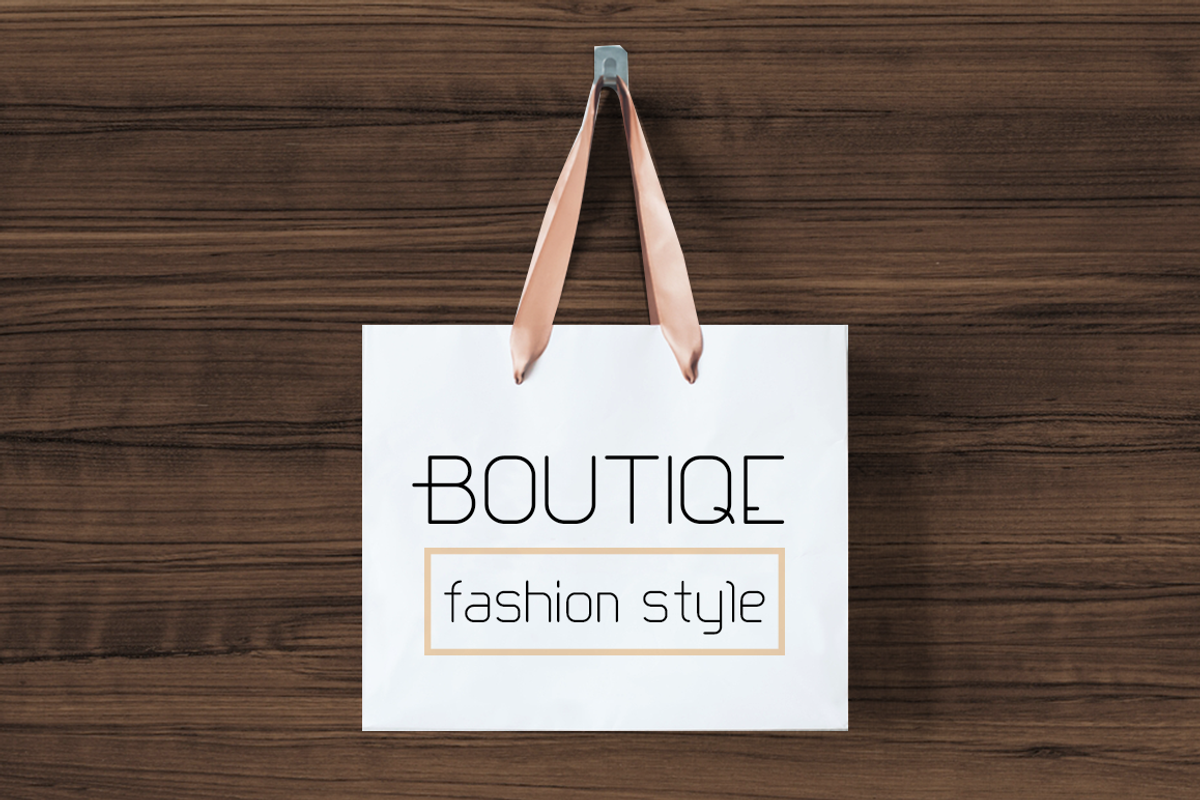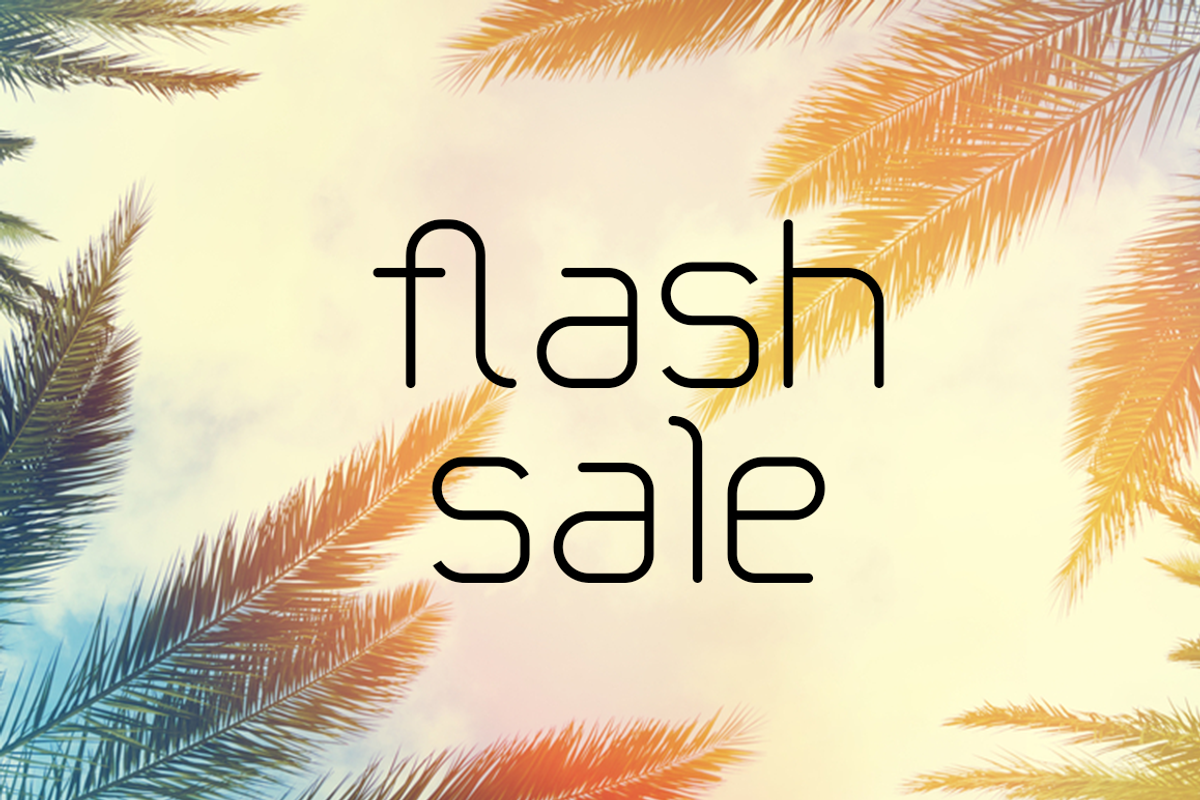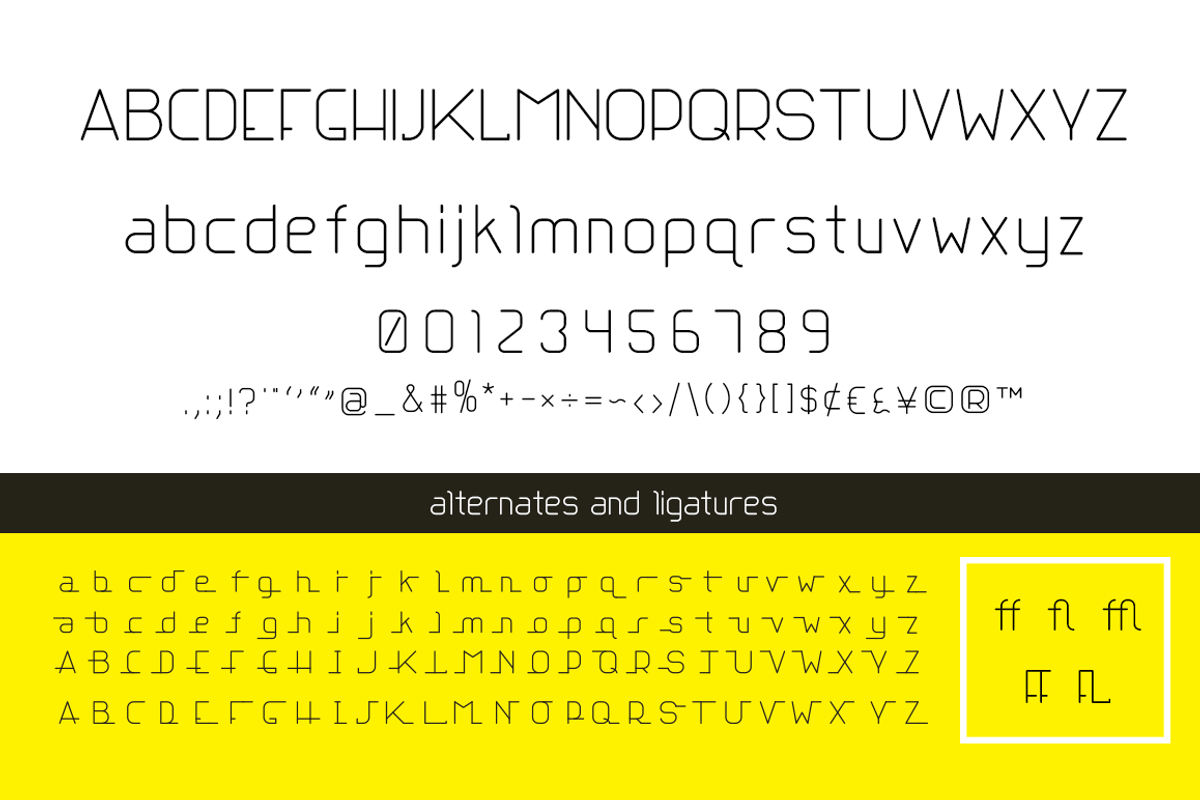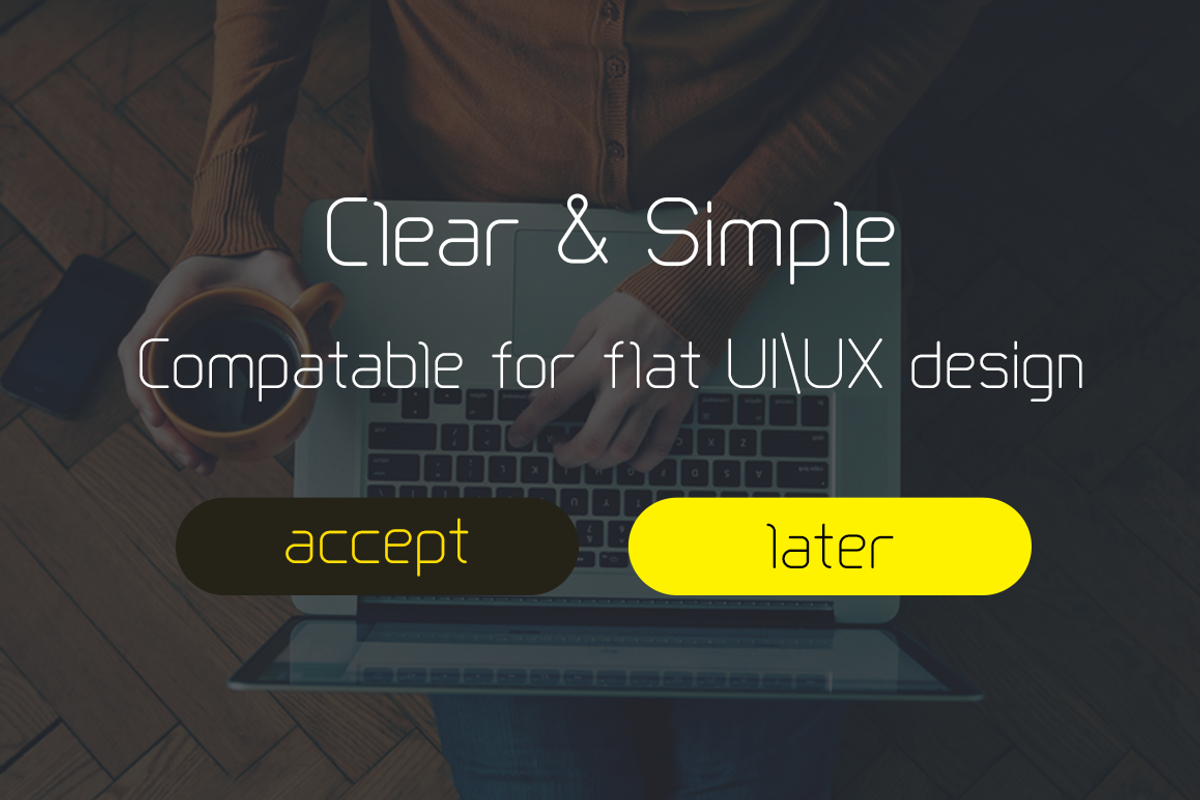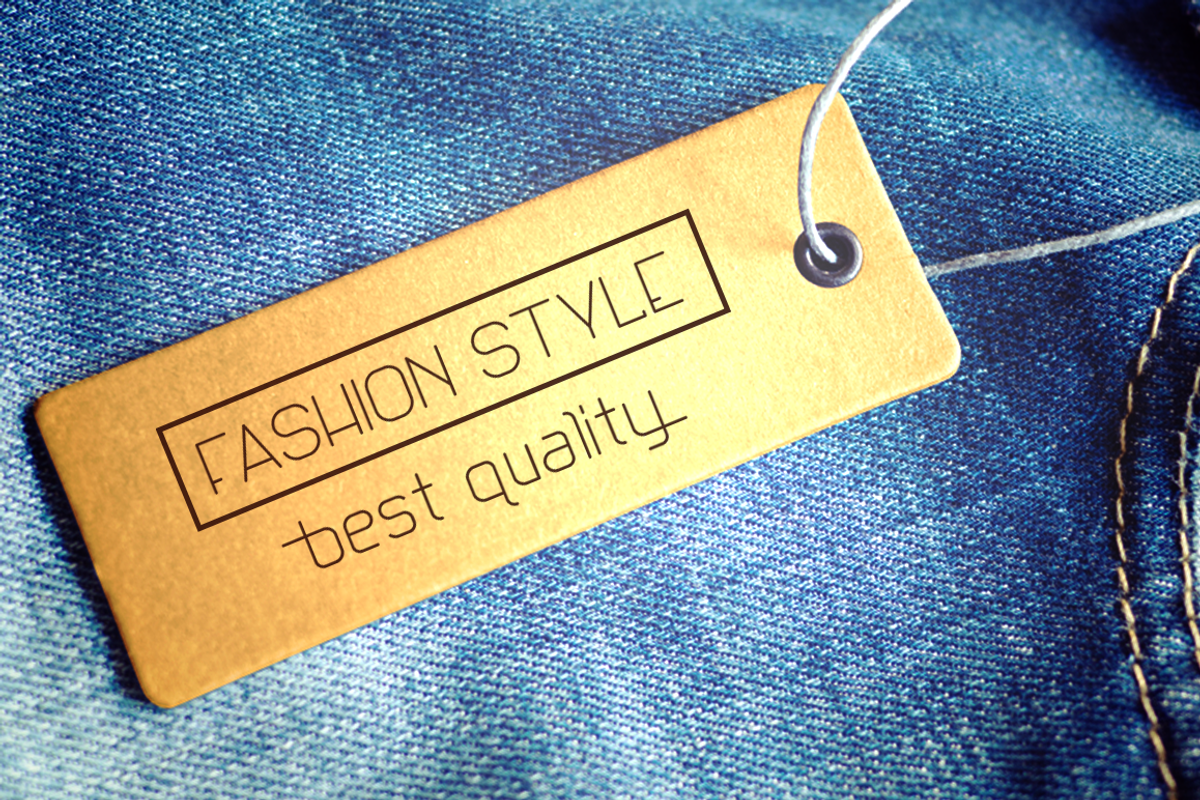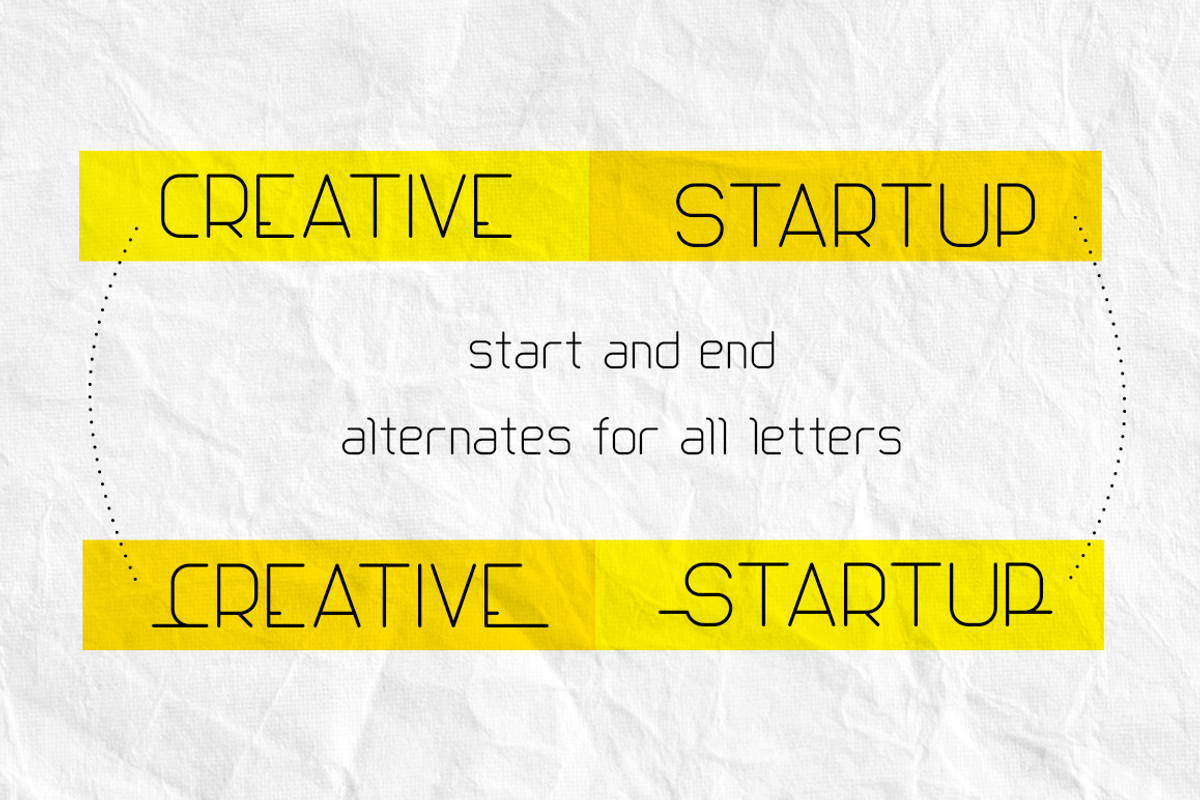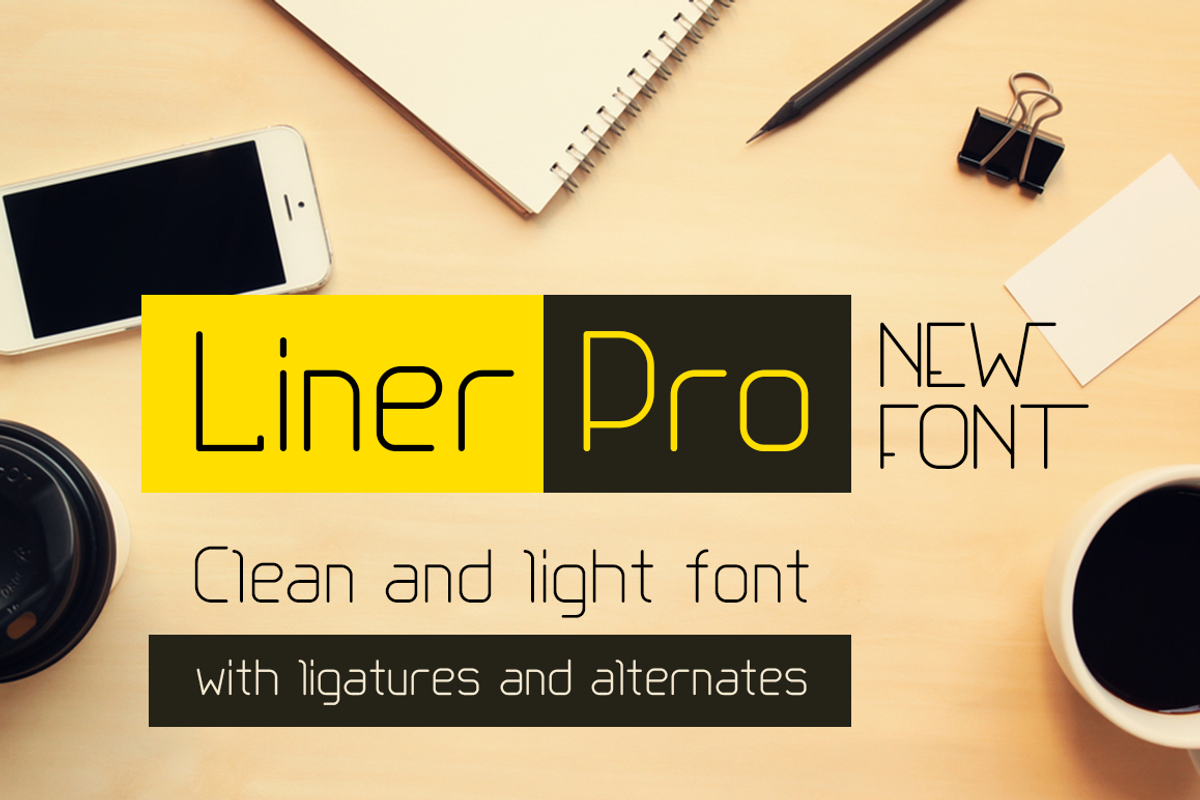
Liner Pro
Liner pro is an improved version of my Liner font (https://creativemarket.com/wowomnom/1504223-Liner-font-for-logos-with-frames). The sans serif simple line font designed with rounded edges for UIUX, web and other design. It has ligatures for all letters. The font works great to make logos and short titles.
- uppercase letters
- lowercase letters
- ligatures for all letters
- numbers & punctuation & special character set